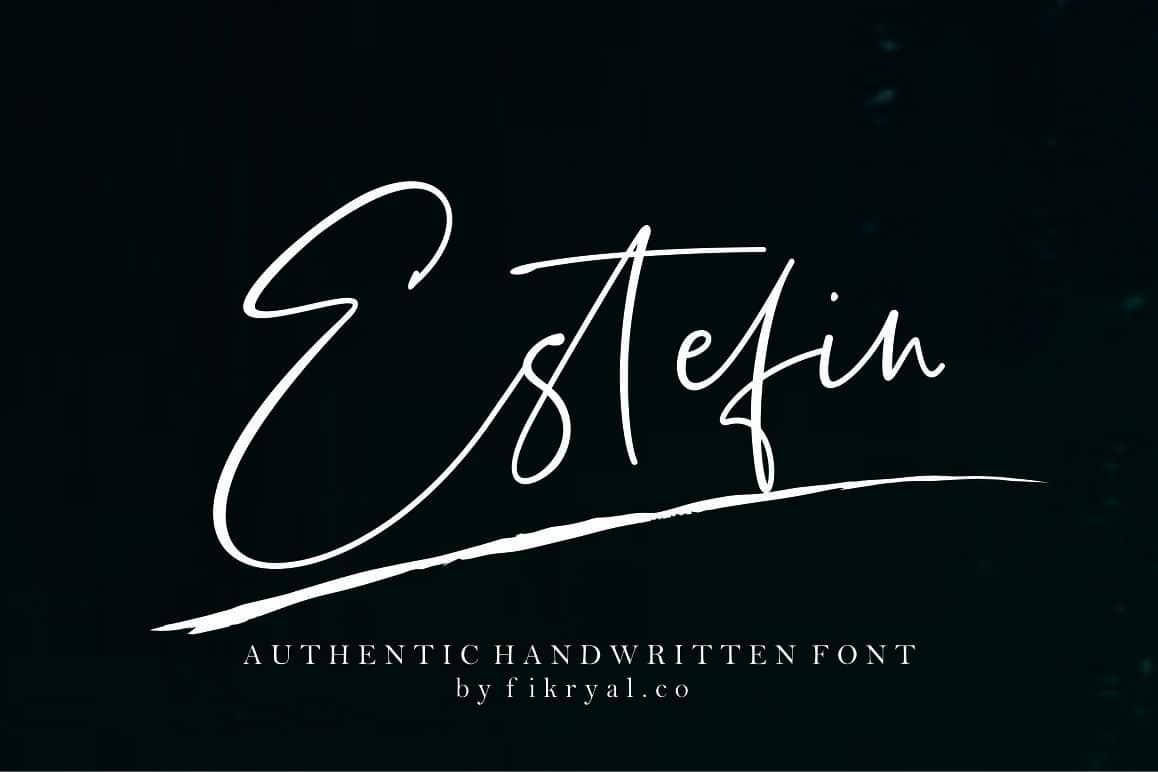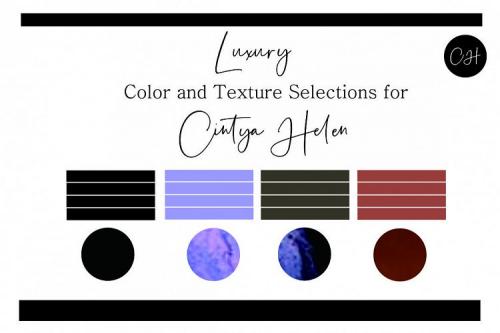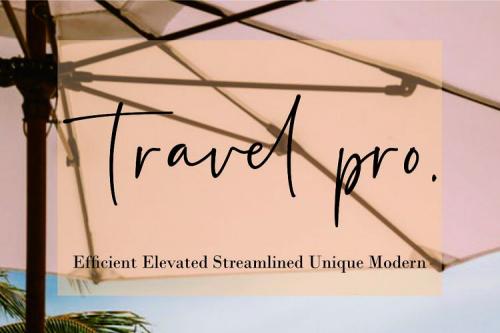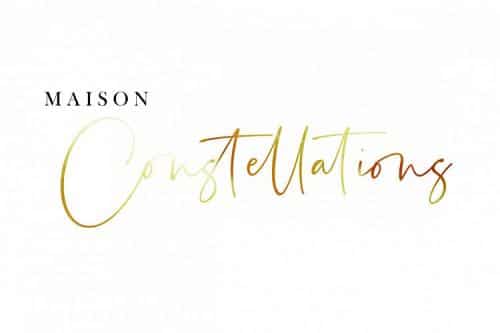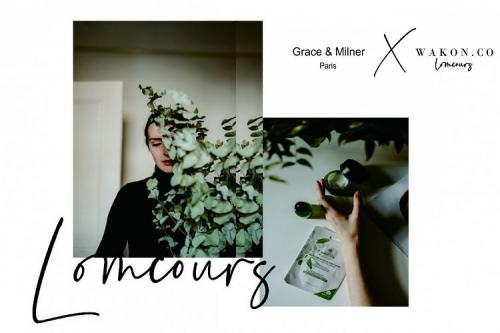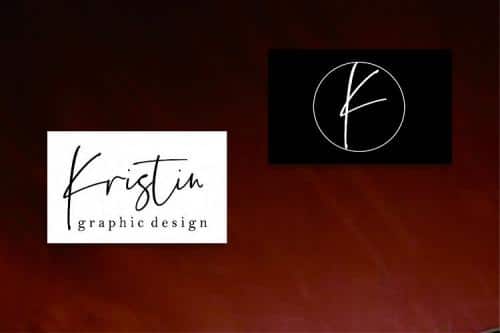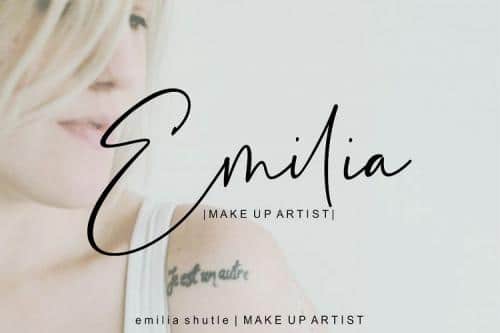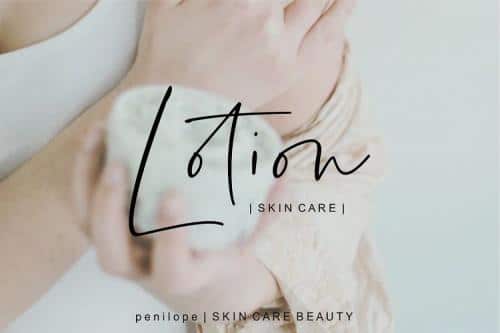
Estefin is a fast handwritten font and is accompanied by natural and authentic strokes that fit, so as to provide an elegant, aesthethic and beautiful impression for all your projects, such as: mockup, design, graphic, quotes, chic, love, bussinescards, magazine, photologo, logodesign , logo, brand, branding, etc.
This font is equipped with stylishtic alternate and a very beautiful standard ligature, and also equipped with multilingual support !!